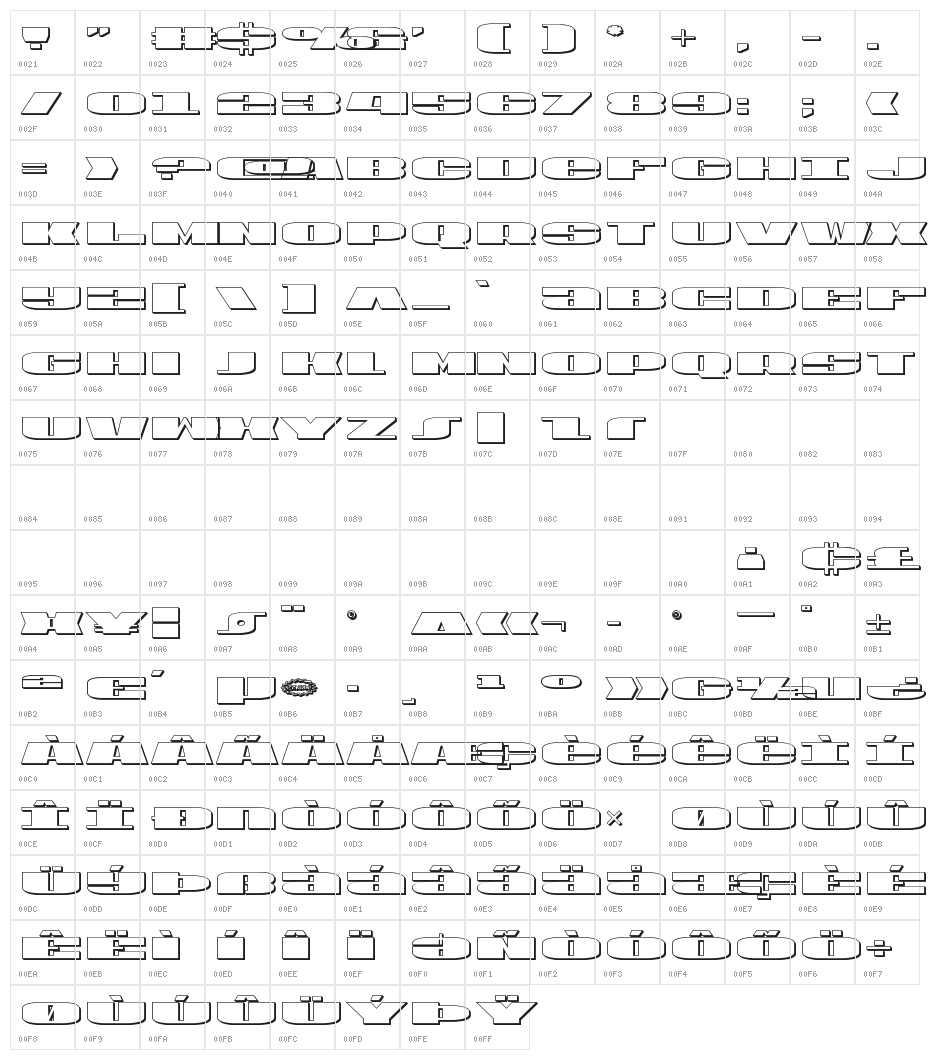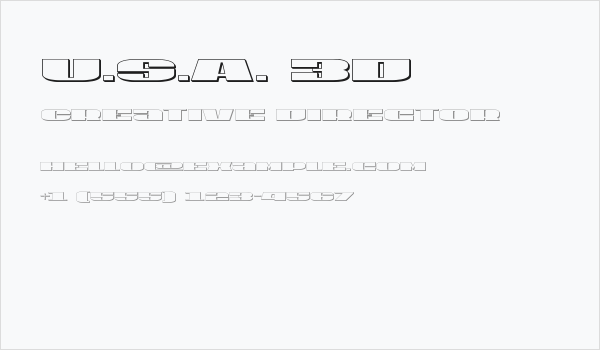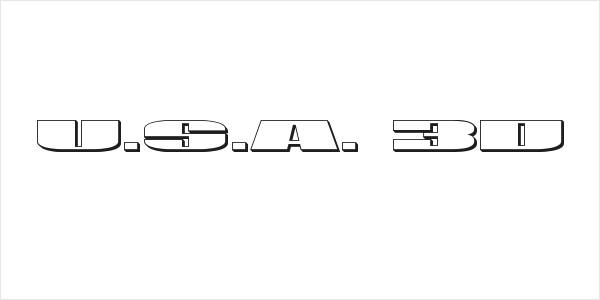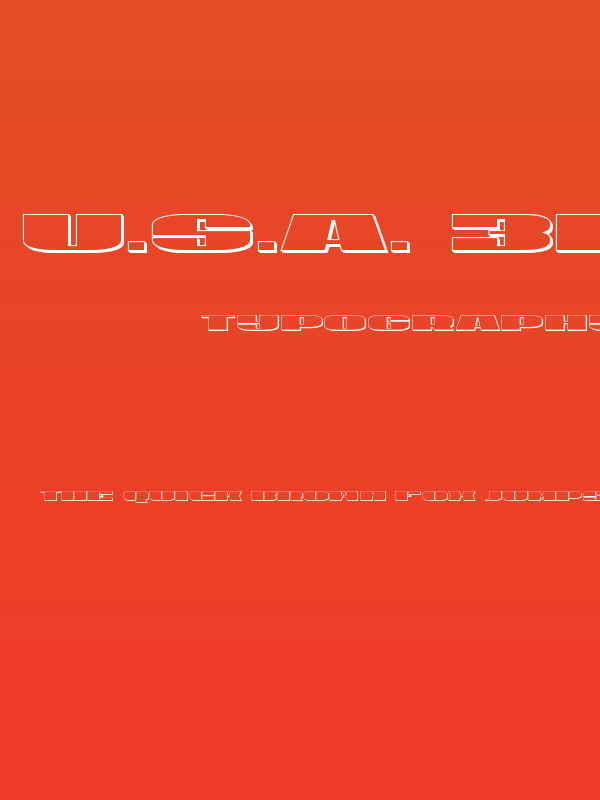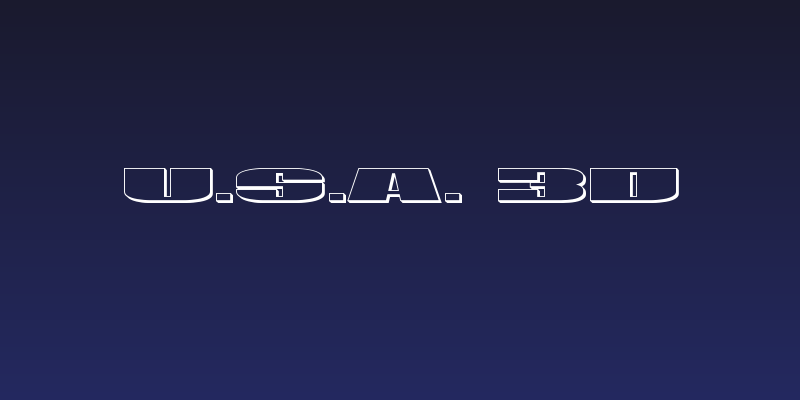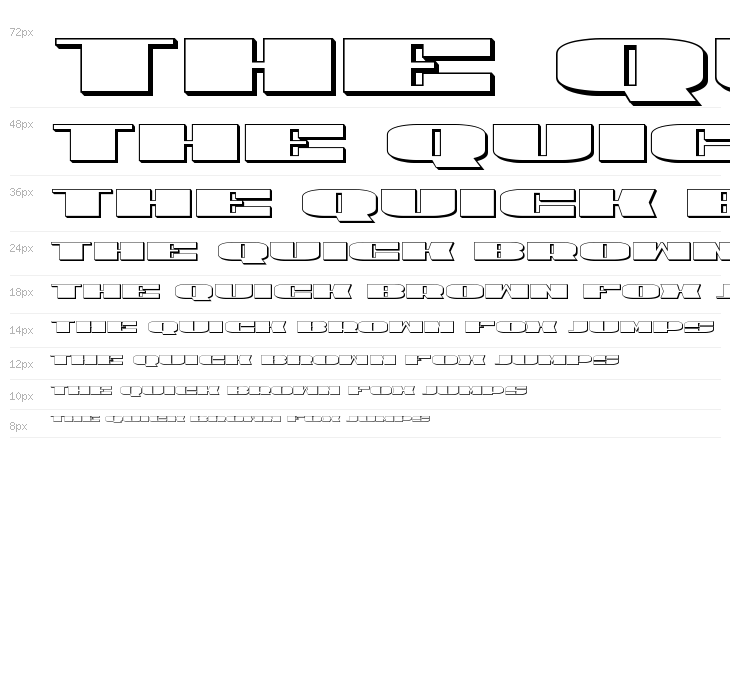
U.S.A. 3D Font
U.S.A. 3D Description
This font features a bold, three-dimensional design with a distinct blocky appearance. Each character is outlined, giving it a hollow look that enhances the 3D effect. The uppercase and lowercase letters maintain a consistent style, with sharp angles and a geometric structure. Numbers and special characters follow the same design principles, ensuring uniformity across all glyphs. The font's unique style makes it stand out, ideal for projects that require a strong visual impact.
Proposed ProjectsIdeal for posters, logos, video game titles, and any design needing a bold, eye-catching typeface.